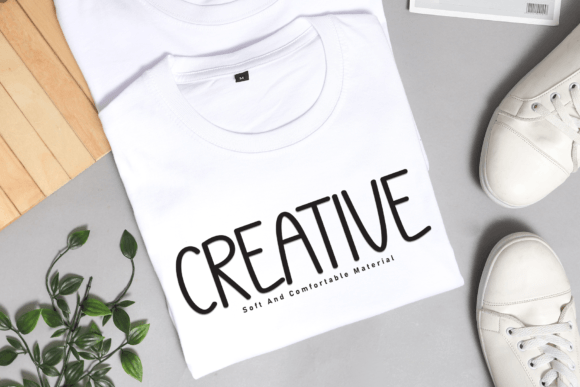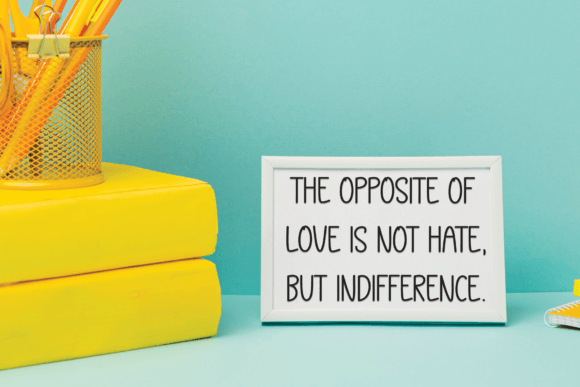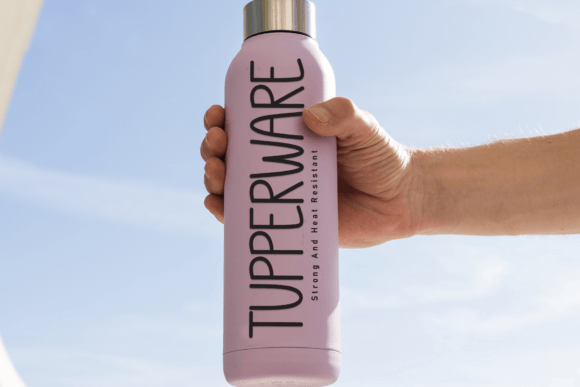
Introduction to Impossible Font
Have you ever stared at a blank canvas, waiting for the perfect spark to ignite your creative project? For many designers, it’s that moment of clarity when the entire concept comes together, and the design begins to take shape. For some, it’s the discovery of a game-changing design resource that sets their work apart. One such resource is the Impossible Font, a unique and captivating handwritten font that adds an unmistakable touch to any design.
Whether you’re a seasoned pro or a design enthusiast, the Impossible Font is a valuable asset in your creative arsenal. Its tall characters and distinctive style make it an ideal choice for headlines, posters, logos, and branding materials. And the best part? It’s available for a high-quality free download, allowing you to experiment with its impact on your designs without breaking the bank.
With its transparent background and versatility, the Impossible Font is sure to elevate your designs and leave a lasting impression. So why settle for ordinary when you can make a statement with the Impossible Font?
Key Features of Impossible Font
- Unique, hand-drawn design with a transparent background, perfect for creative projects that require a touch of whimsy.
- Comes in 4 different font styles: Regular, Bold, Italic, and Bold Italic, offering a range of design options for your creative project.
- Designed to be highly legible, even at small font sizes, making it ideal for use in logos, branding, and other design applications.
- Designed as a design resource for creative professionals, Impossible Font is perfect for adding a touch of personality to your next project.
Honest Review: Impossible Font
I recently stumbled upon the Impossible Font, a free download that I was eager to test in my next creative project. Overall, I found this design resource to be quite impressive, but not without its limitations.
Here are the highlights:
- ✨ High-quality design: The Impossible Font boasts crisp, clean lines and a modern aesthetic that makes it perfect for a variety of creative projects.
- ✨ Transparent background: This feature allows for seamless integration with any background image or color, making it ideal for digital design applications.
- ⚠️ Limited font variations: While the Impossible Font is a great addition to any design arsenal, it’s not a comprehensive font family with multiple weights and styles.
- ⚠️ Not ideal for print design: Due to its digital design focus, I found the Impossible Font to be less suitable for print projects, where font consistency and legibility are crucial.
Overall, I’d recommend the Impossible Font as a valuable design resource for digital projects, especially those requiring a modern and sleek aesthetic. Just be aware of its limitations and consider these factors when deciding whether to use it in your next creative project.
Impossible Font
The Impossible Font is a unique and creative design resource that offers a high-quality, transparent background. This free download is perfect for adding an extra layer of sophistication to your next project.
To get the most out of the Impossible Font, try combining it with other design elements, such as bold lines or bright colors, to create a visually striking effect.
The Impossible Font is perfect for:
- Creative projects that require a unique and eye-catching design.
- Designs that need a high-quality, transparent background.